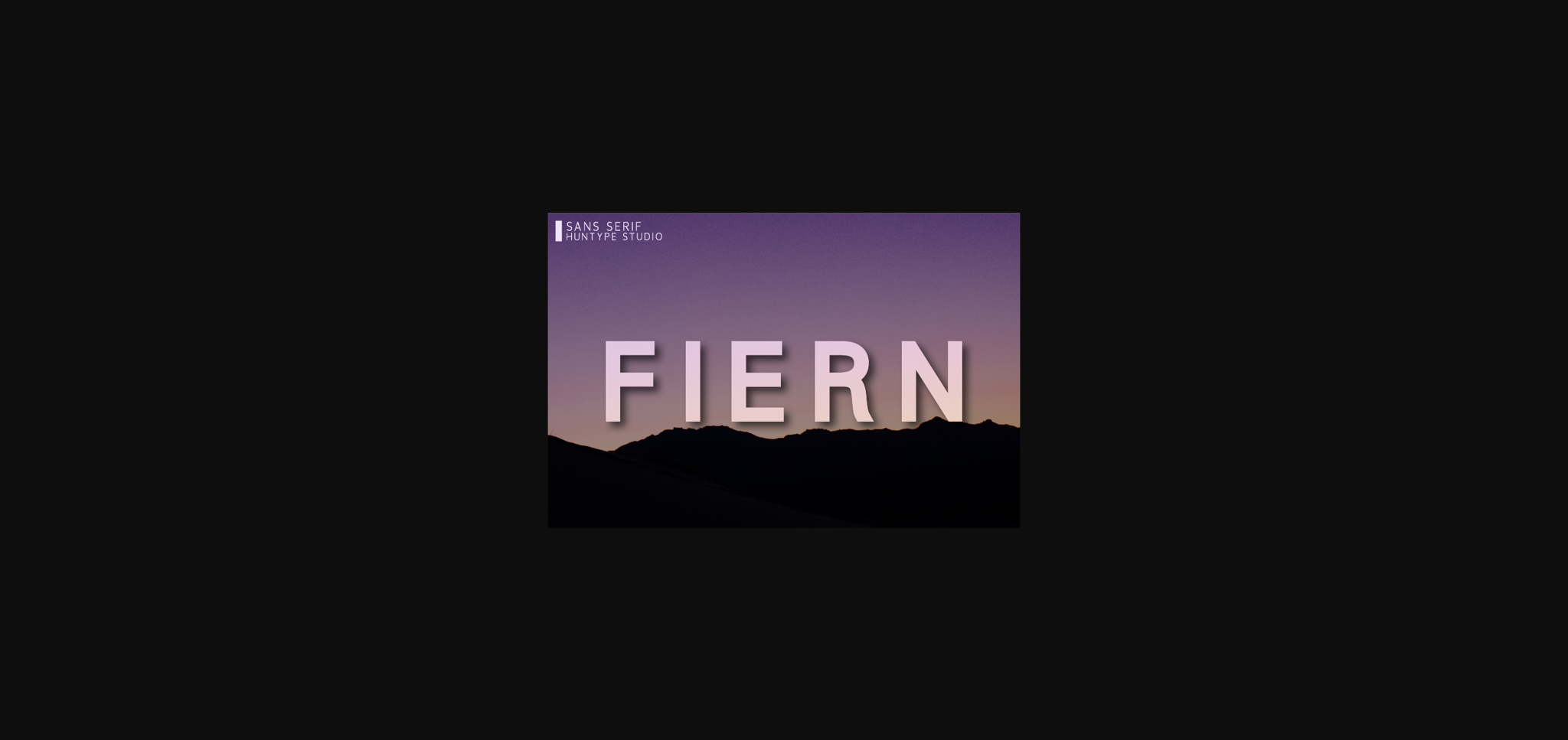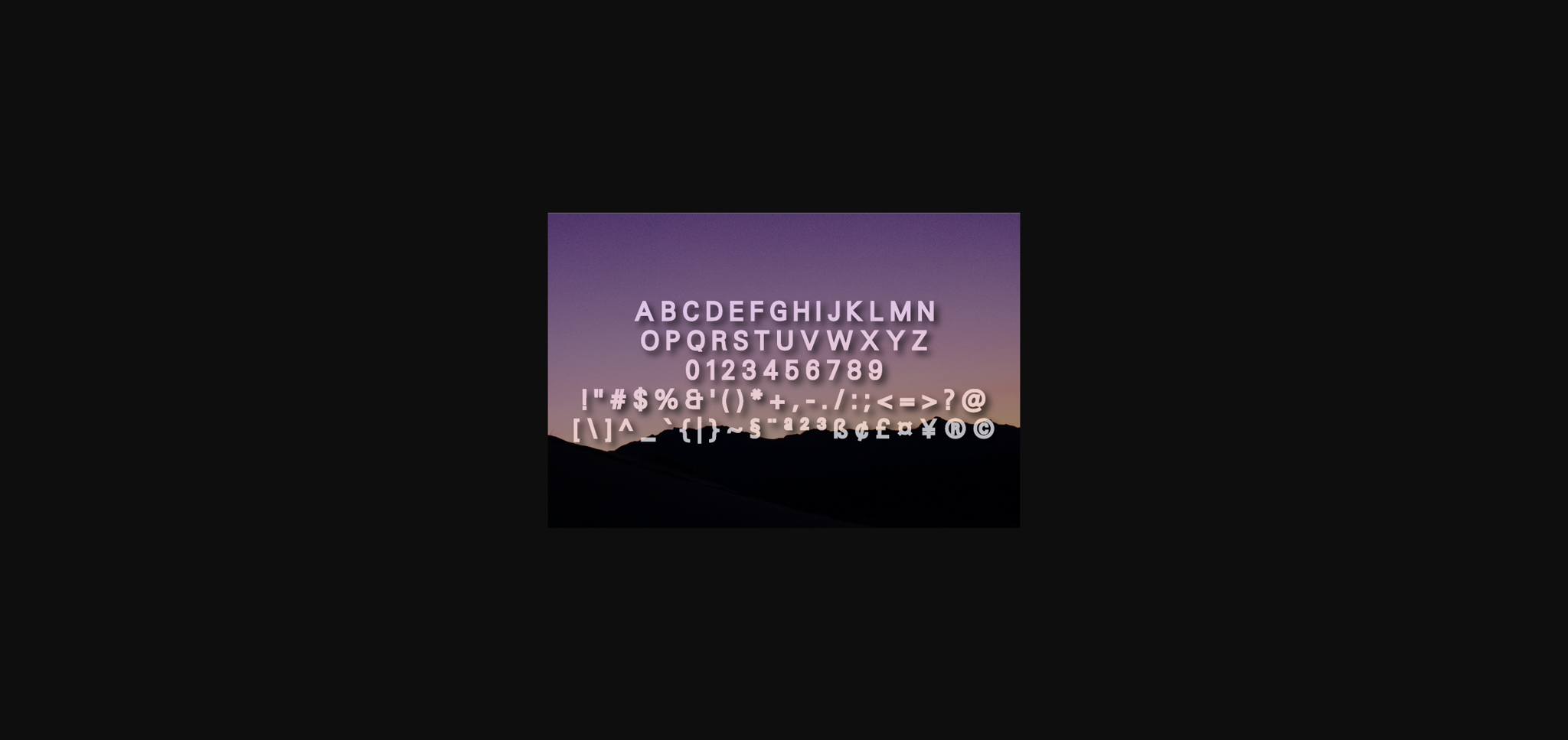
HomeSans Serif FontsFiern Font Sans Serif Fonts Fiern Font FacebookXPinterestWhatsApp 1 of 4 ... Fiern Font Poster 2... Fiern Font Poster 3... Fiern Font Poster 4... About Fiern Font Fiern is a modern sans serif font. It will complement any design need perfectly with its perfectly balanced mix of the smooth and sharp! DOWNLOAD NOW People also explored Project Fairfax Addison Font Quickly Exquisite Font About Love Font Bumblebee Font The Mountains Font The Best Story Font Ikhlas Font Romantic Couple Font 415 0 TagsFiernFiern Font Previous articleWoirles FontNext articleBeltran Font LEAVE A REPLY Cancel reply Comment: Please enter your comment! Name:* Please enter your name here Email:* You have entered an incorrect email address! Please enter your email address here Website: Save my name, email, and website in this browser for the next time I comment. Personal Use Free Lion Teen Personal Use Free Read more about this font Die Nasty Personal Use Free Read more about this font Angelitta Personal Use Free Read more about this font Zojihun Personal Use Free Read more about this font BLOG The 10 Best Handwriting Fonts to Add Personality to Your Designs 10 of the Best Handwriting Fonts for Adding Personality to Your Designs There will undoubtedly be no other better choice than handwriting fonts to give... How to Cut Any Font on Cricut: Convert a Font to SVG (Free) Exploring Font Trends Best Fonts for T-Shirt Design – Top 2025 Picks